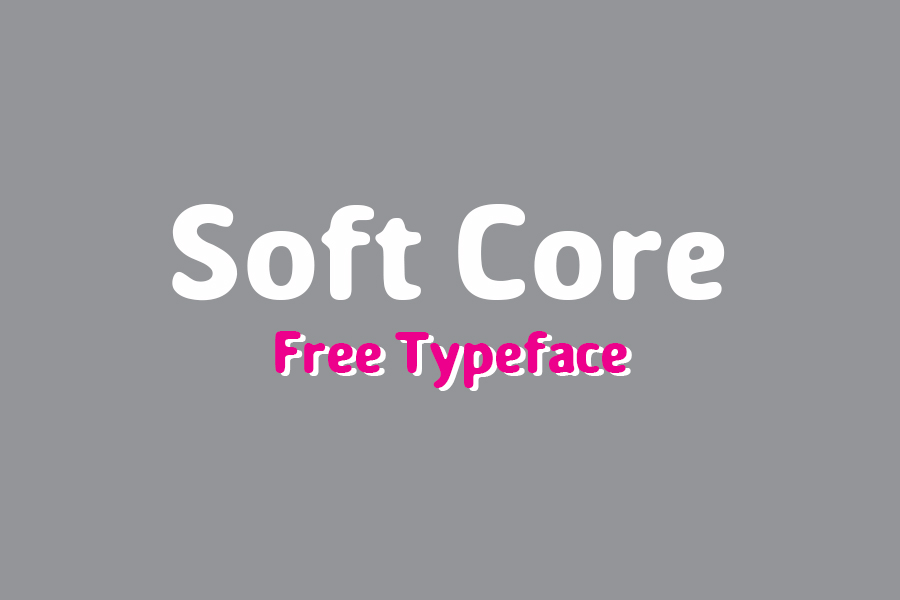
Soft Core Free Font
Introducing Soft Core Font! Soft Core designed and shared by Ungrund Studio. The ‘Soft core’ font is the round version of the ‘Core’ font. Soft Core Font for kids. Cartoons, books, children’s products, logotypes — this is his natural habitat. At the same time the font will help to solve any design tasks.